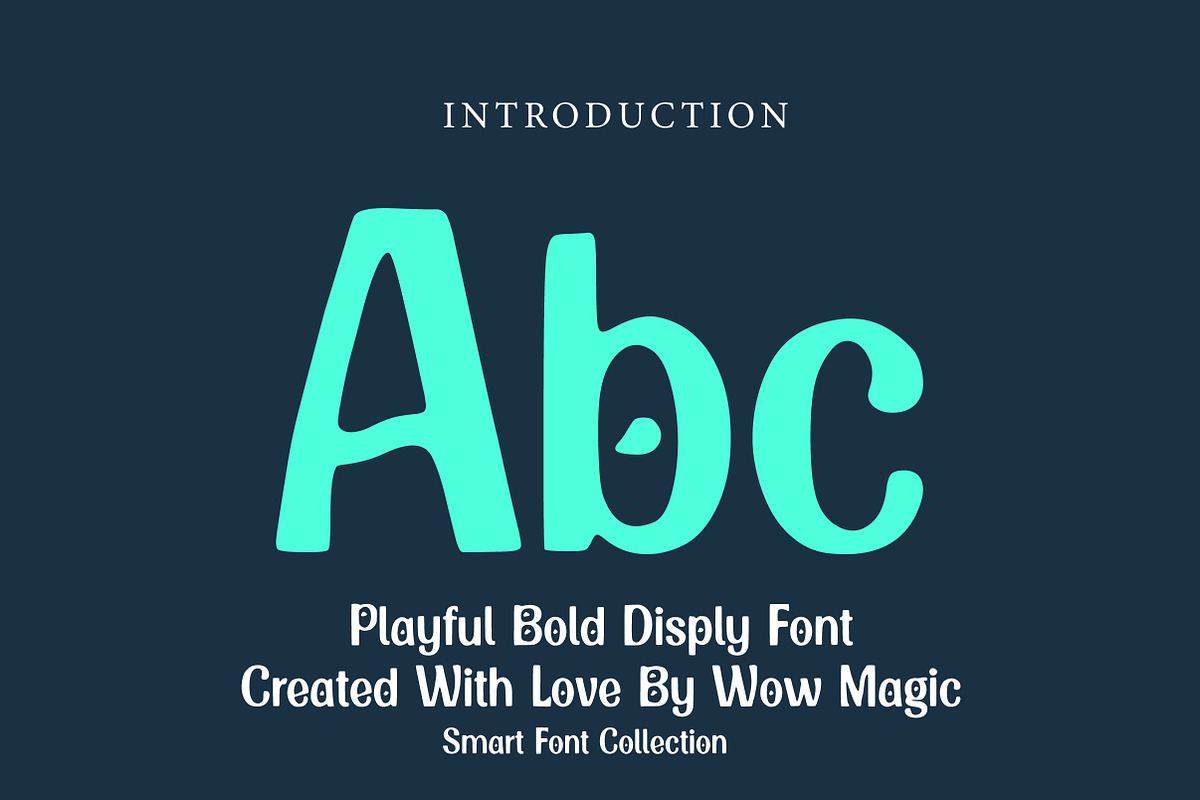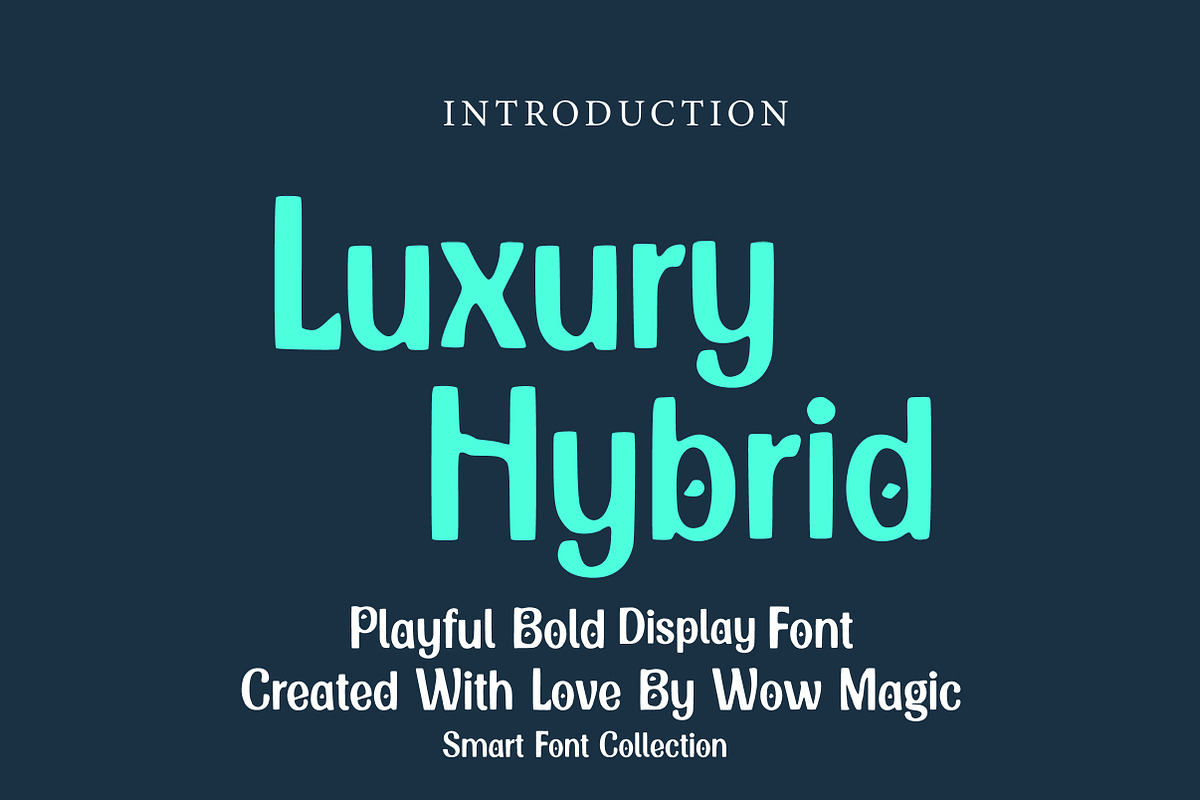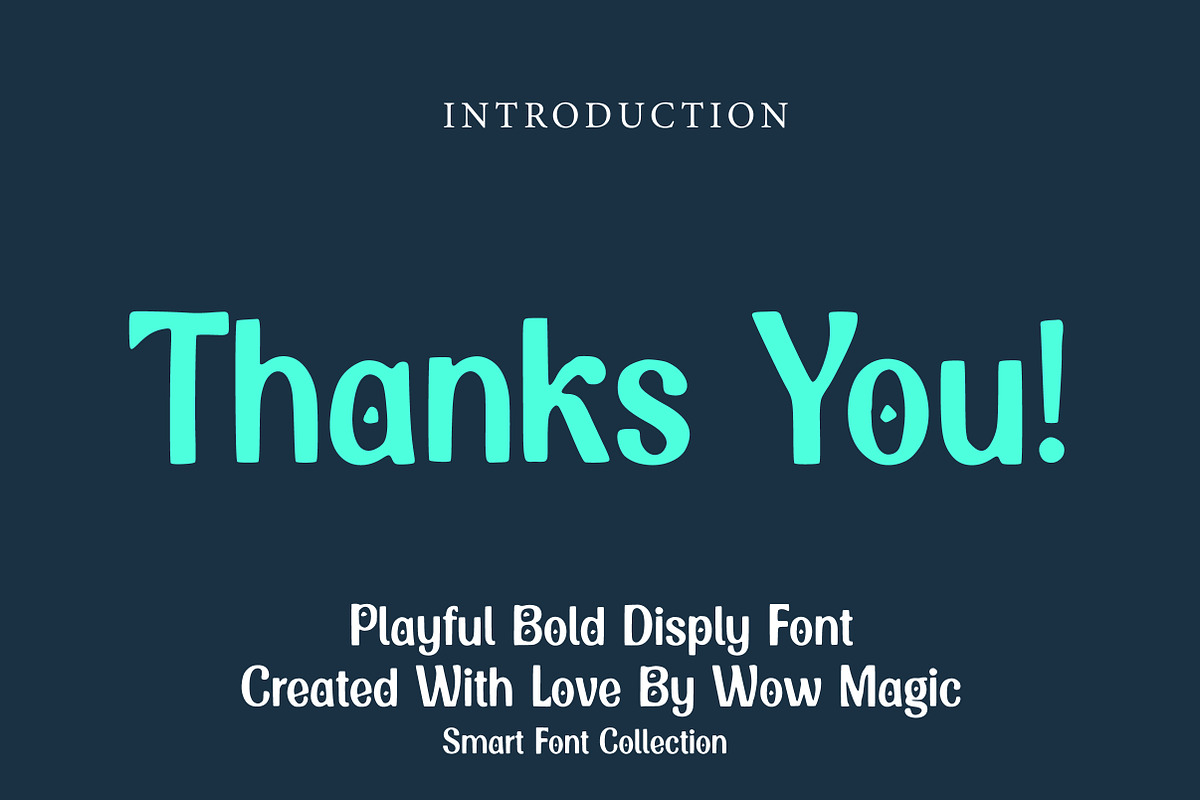
Luxury Hybrid
Luxury Hybrid is a modern display font that blends elegance with playful character details, creating a unique balance between premium sophistication and creative expression. Featuring smooth rounded strokes, bold structure, and subtle decorative elements, this typeface delivers a refined yet approachable look.
The clean letterforms provide excellent readability, while the distinctive character accents add personality and charm. Luxury Hybrid is perfect for branding, fashion projects, beauty packaging, boutique logos, social media graphics, and stylish headline designs.
Designed for creators who want a contemporary and versatile typeface, Luxury Hybrid adds a classy, polished, and memorable touch to any visual identity.